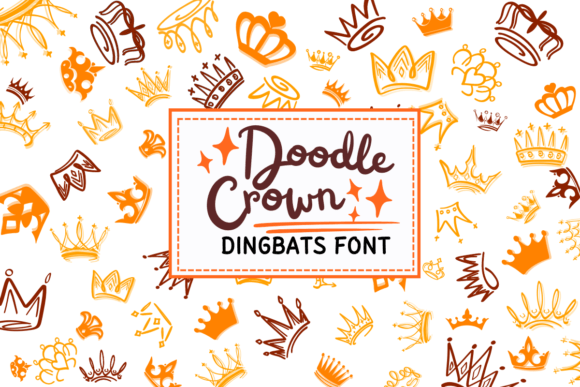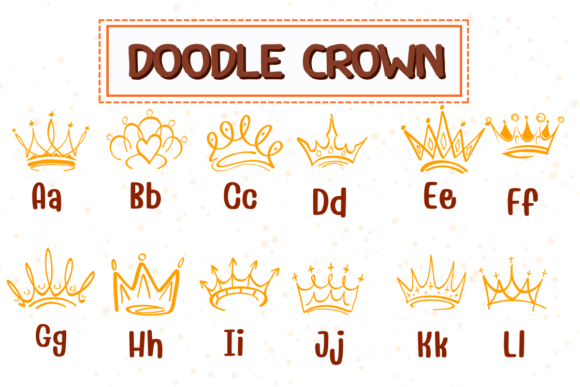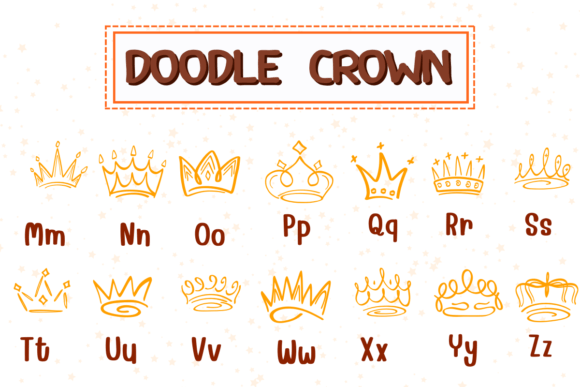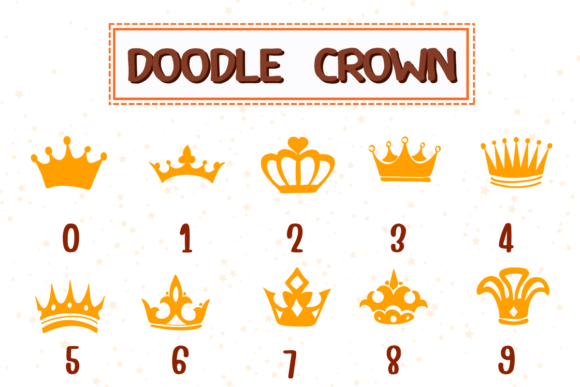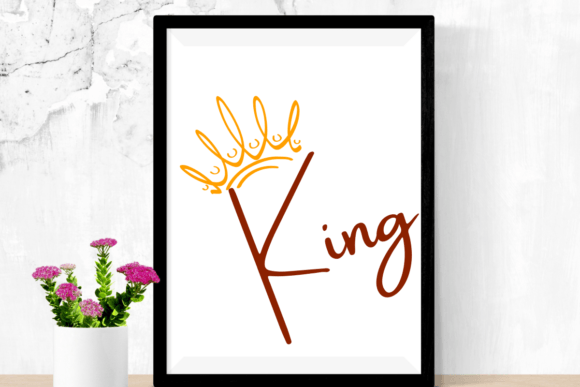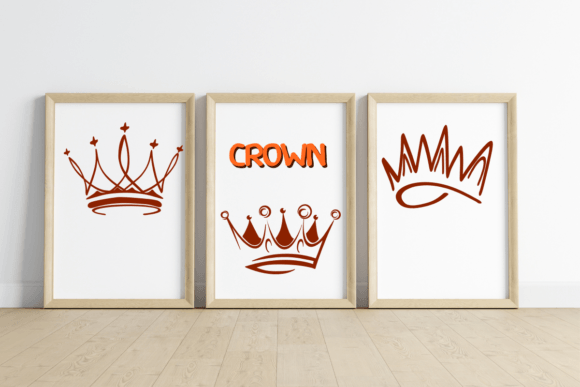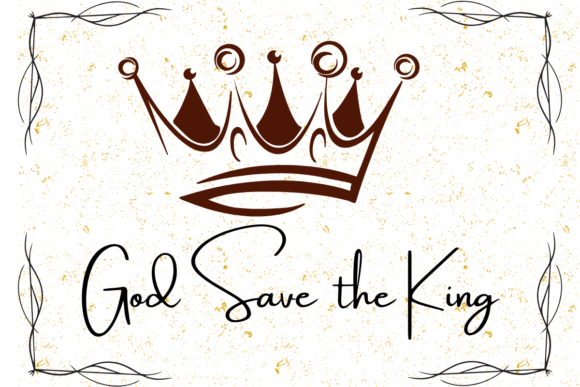
The Royal Touch: Unlocking the Magic of Doodle Crown Font
Have you ever found yourself in the midst of a creative project, searching for the perfect embellishment to elevate your design? Maybe you’re crafting a wedding invitation, designing a children’s book, or even planning a themed party. Whatever your project may be, you know that a little something extra can make all the difference.
Enter Doodle Crown Font, a delightful dingbat font that brings a touch of whimsy and wonder to your work. With its vast array of crown designs, this font is perfect for adding a royal flair to any project. Whether you’re a seasoned designer or a crafty enthusiast, Doodle Crown Font is sure to become your go-to tool for adding a unique and playful twist to your creations.
Doodle Crown Font Key Features
- Font Style: A whimsical, hand-drawn font with a royal and elegant feel, perfect for creating a unique and eye-catching design.
- Unique Characteristics: Features intricate details, such as swashes and flourishes, adding a touch of sophistication and elegance to any design.
Doodle Crown Font Review
I recently had the chance to work with the “Doodle Crown Font” and I must say it’s a unique addition to any design project. ✨ The font’s playful, hand-drawn feel adds a touch of whimsy to text-based elements, making it perfect for children’s books, party invitations, and other creative projects.
- ✨ The font’s imperfections give it a charming, human touch that’s hard to replicate with digital tools.
- ✨ The character set is extensive, making it suitable for a wide range of design projects.
- ✨ The font is easy to use, even for designers who aren’t familiar with custom fonts.
- ⚠️ The font may not be suitable for formal or professional projects, as its playful feel may come across as unprofessional.
- ⚠️ Some users may find the font’s imperfections distracting or difficult to read.
- ⚠️ The font may not be compatible with all design software or operating systems.
Overall, I think the “Doodle Crown Font” is a great addition to any designer’s toolkit. While it may not be suitable for every project, its unique feel and extensive character set make it a great choice for creative and playful designs.
The Doodle Crown Font is ideal for:
– Whimsical wedding invitations and stationery
– Children’s party decorations and invitations
– Personalized gift tags and labels
– Creative business branding and marketing materials